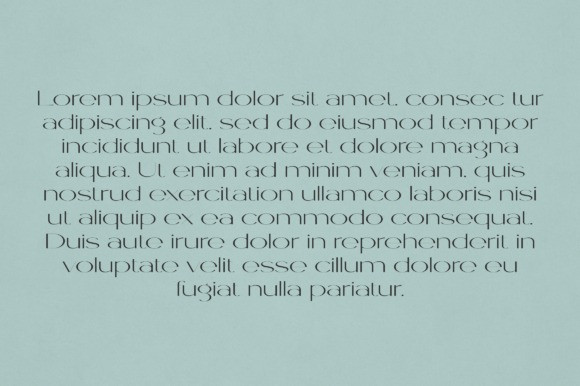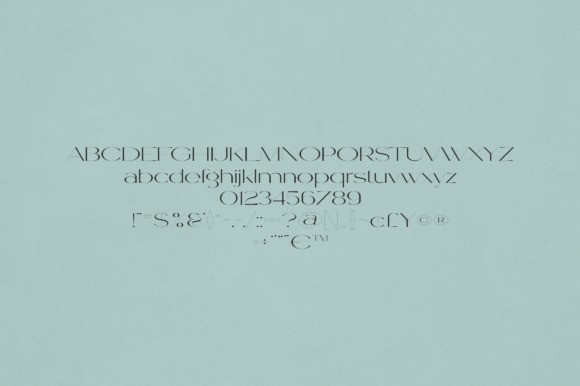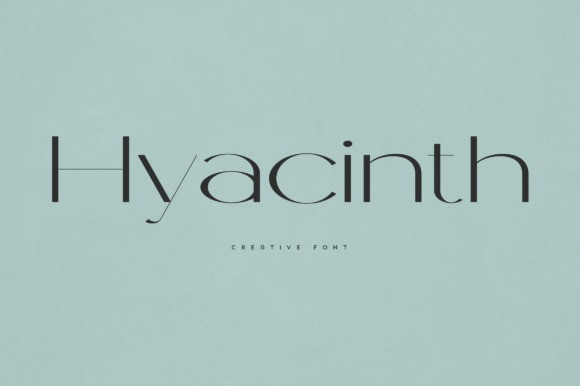
Hyacinth Font
Hyacinth Font is an elegant and versatile sans font that will make your typography truly unique! It will enchant every logo, branding, headline, or plain text!